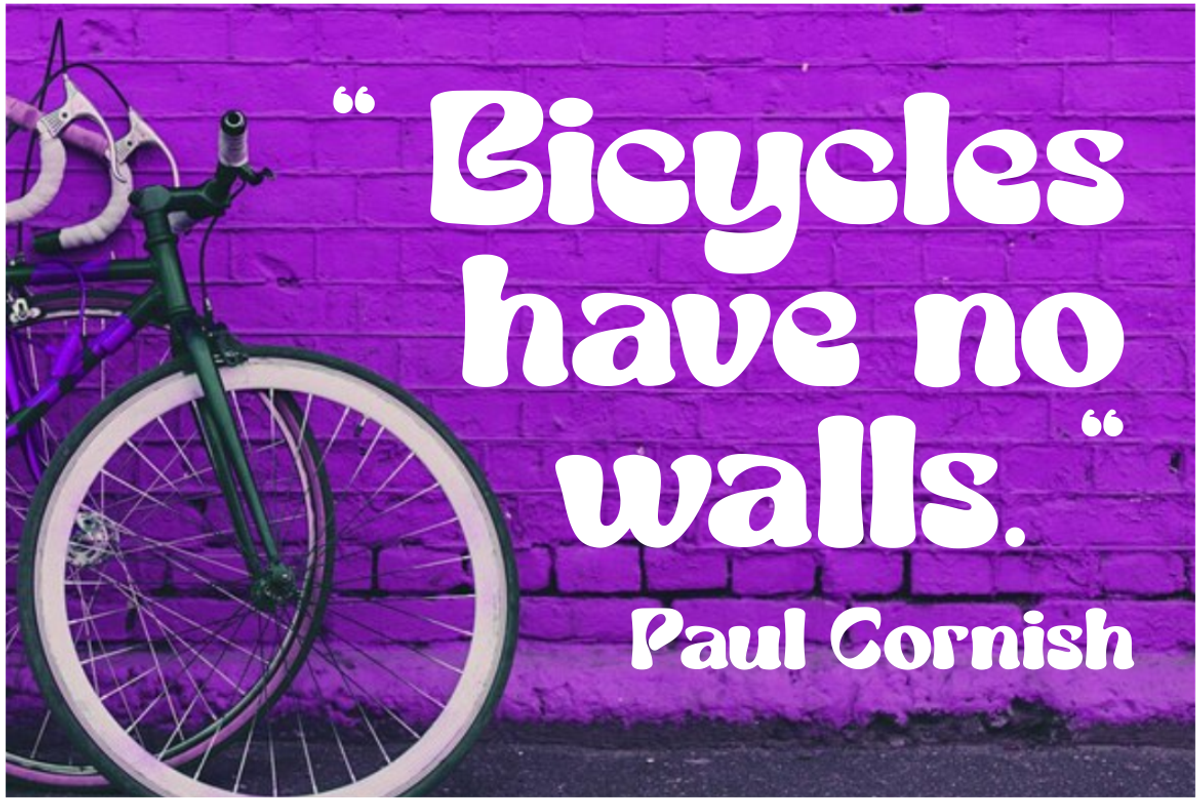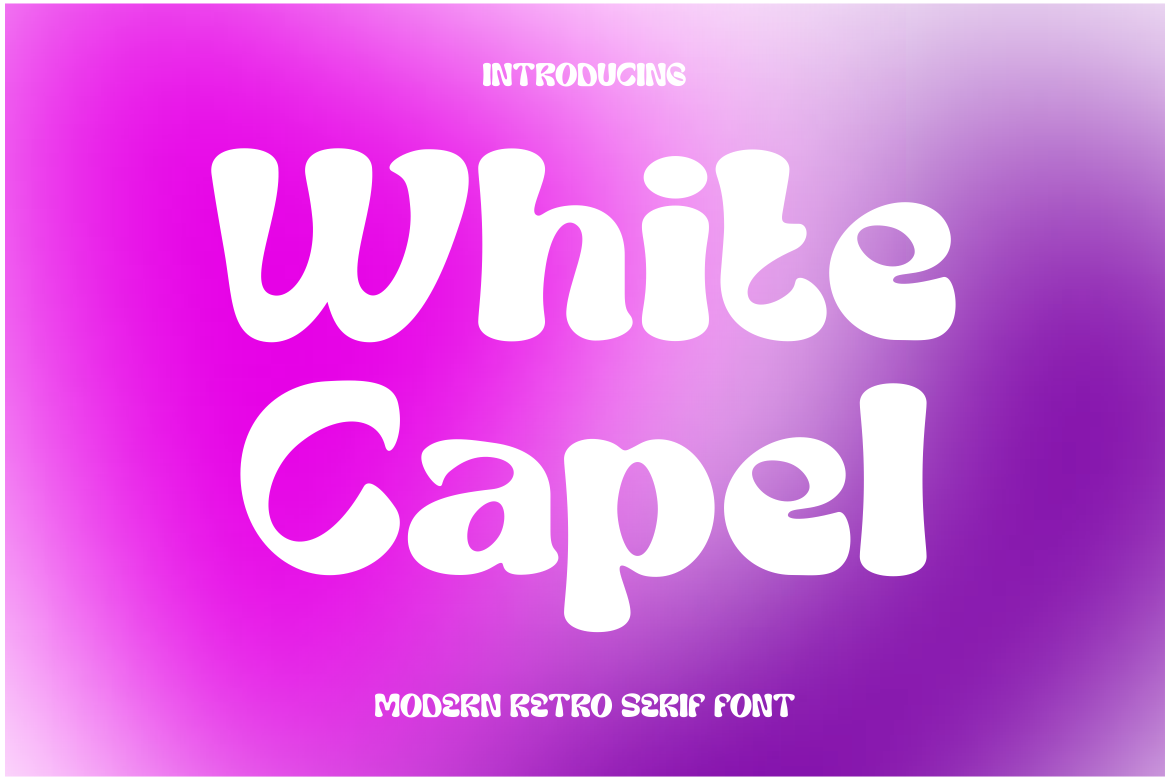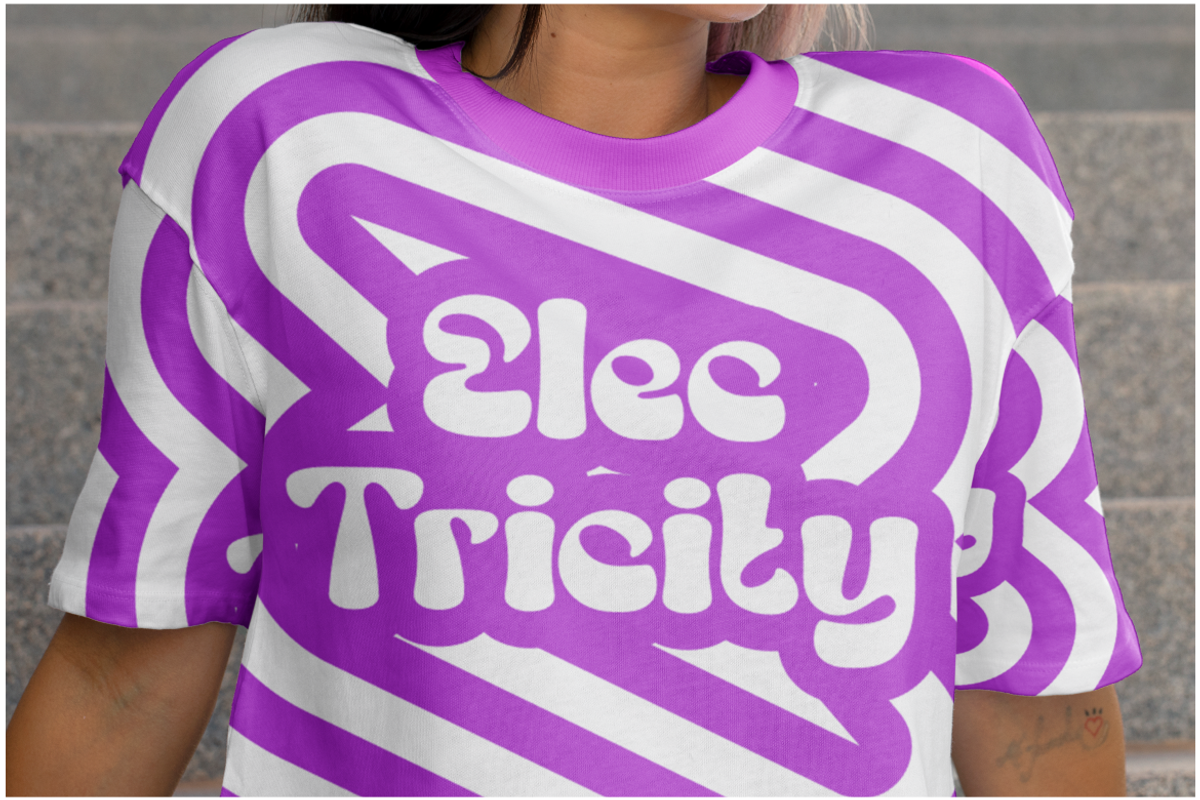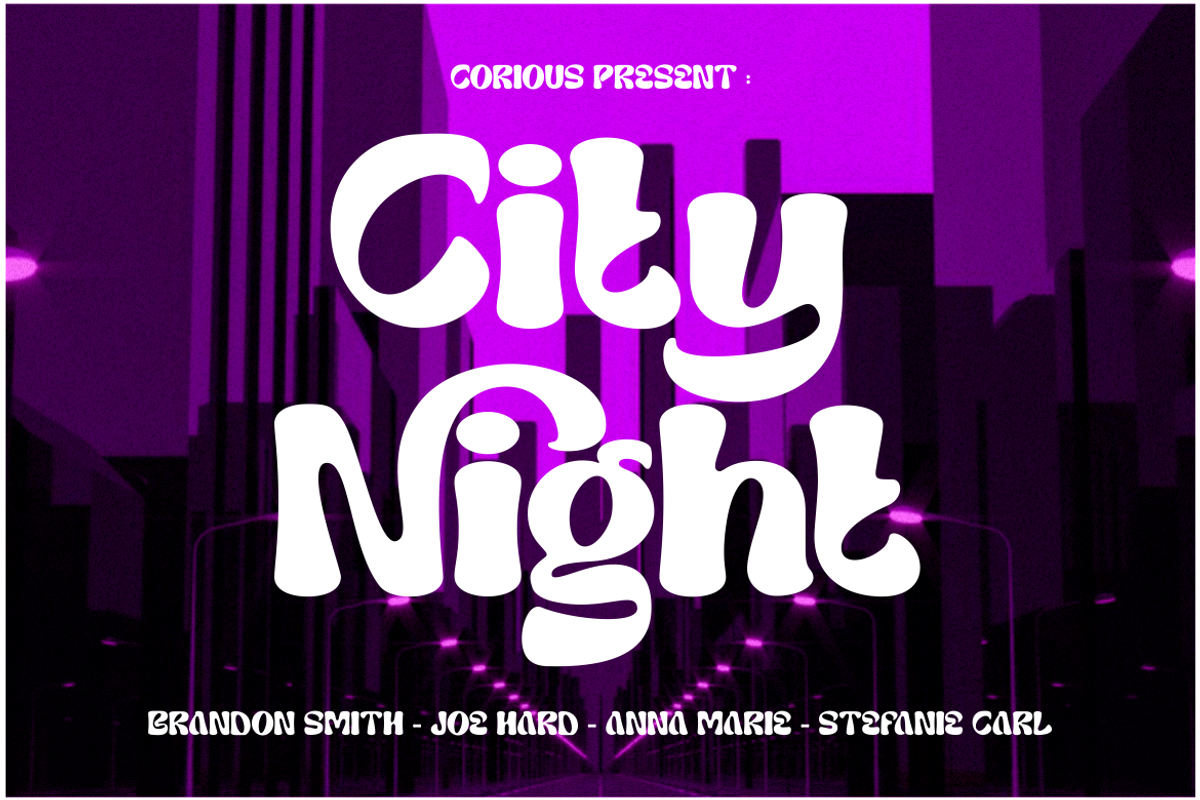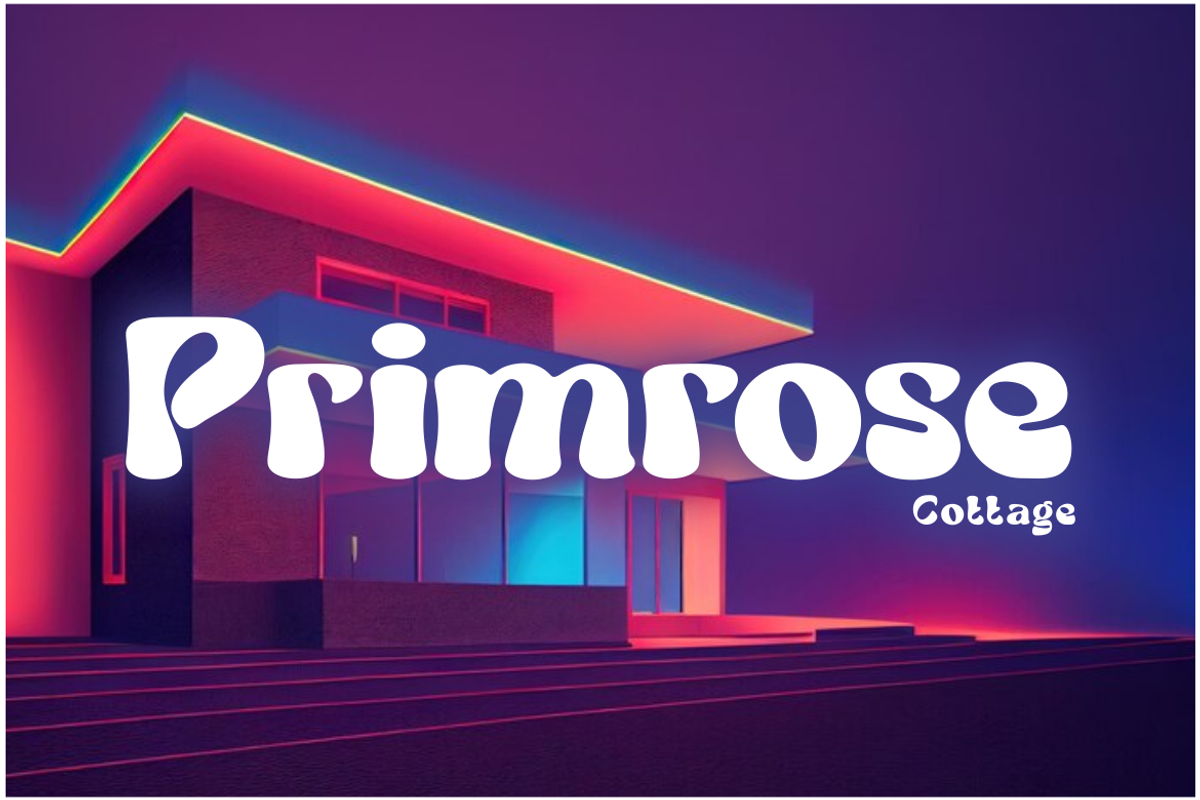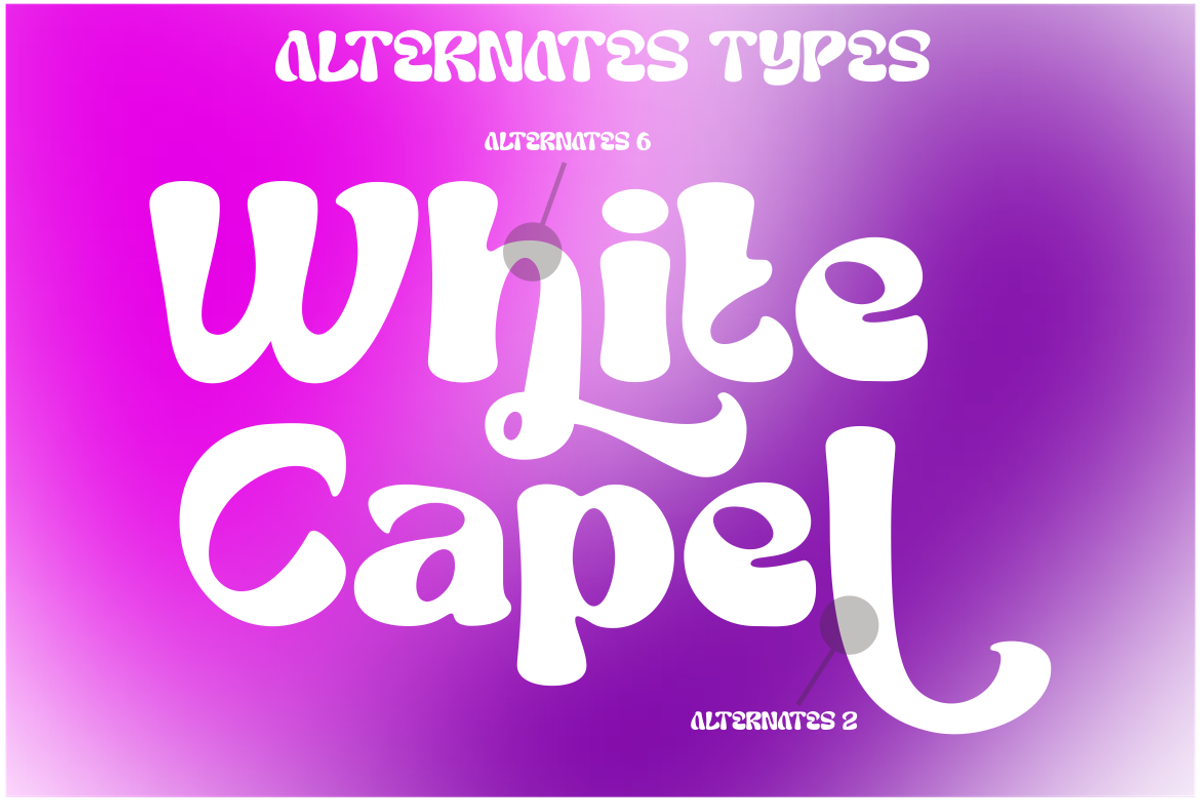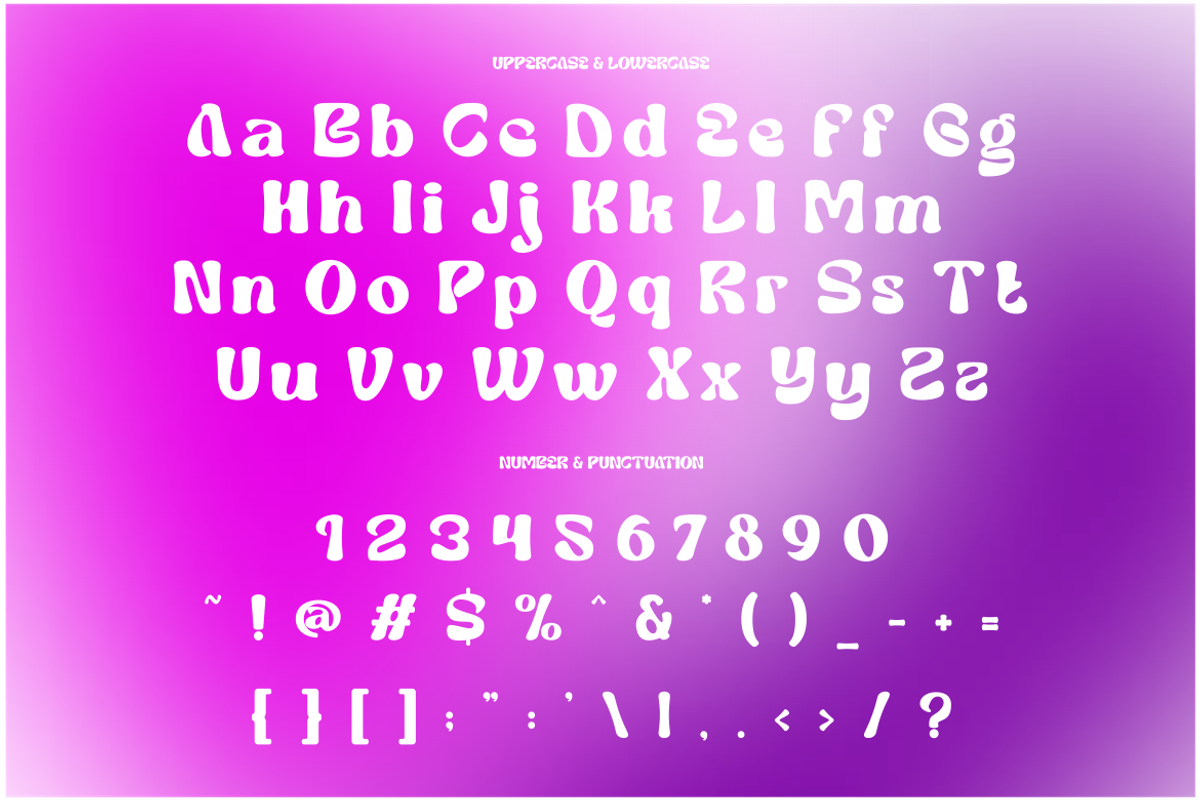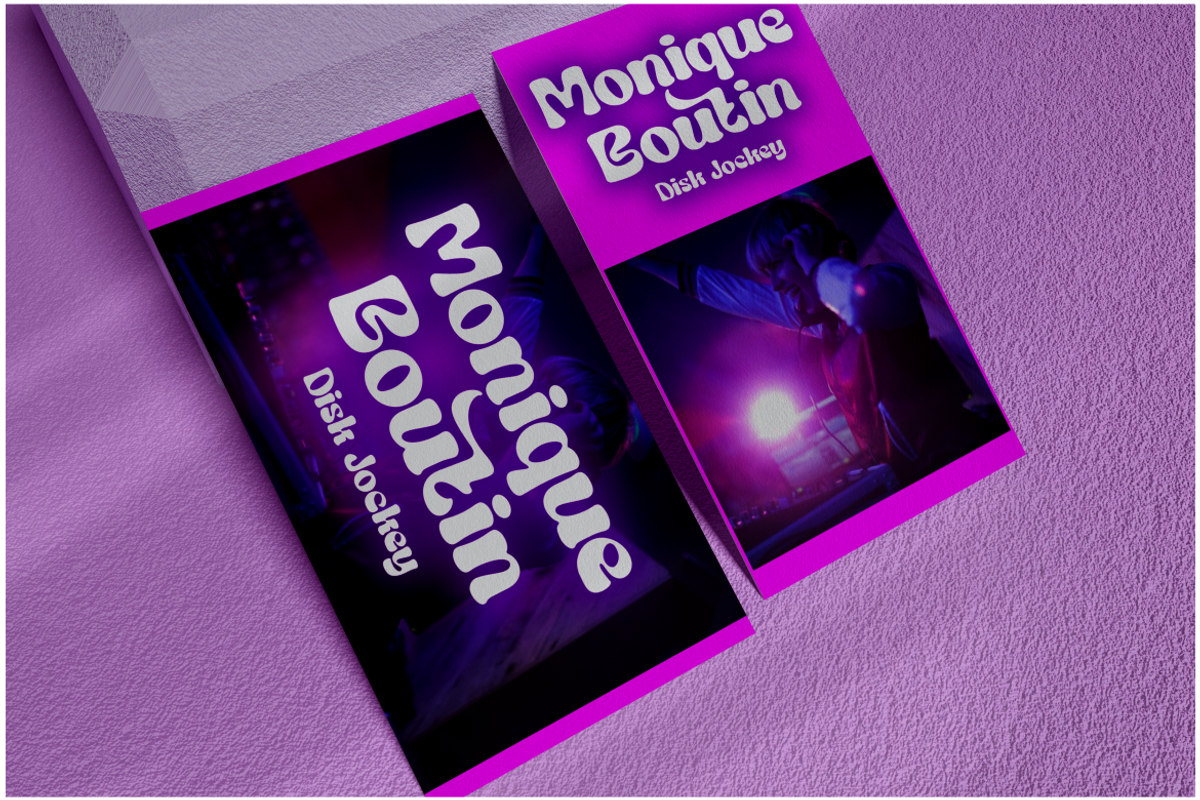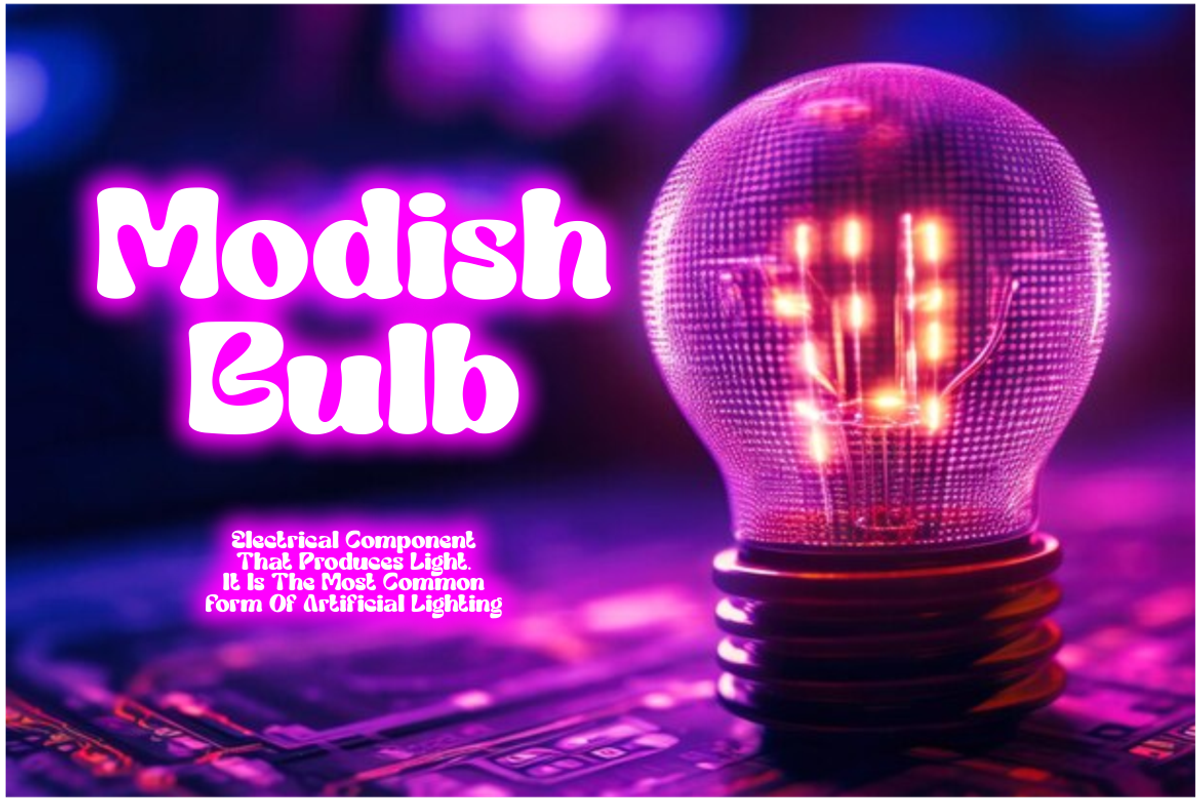
White Capel - Modern Display Font
White Capel - Modern Display Font is a bold, distinctive, and thoroughly contemporary typeface that exudes a trendy and up-to-the-minute vibe. Its soft, rounded letterforms lend it a unique and easily recognizable appearance, ensuring it stands out in any design. This font is perfectly suited for a wide range of applications, including logos, quotes, posters, branding, business names, and more. With its modern, sleek aesthetics, White Capel brings a touch of current style to your creative projects.